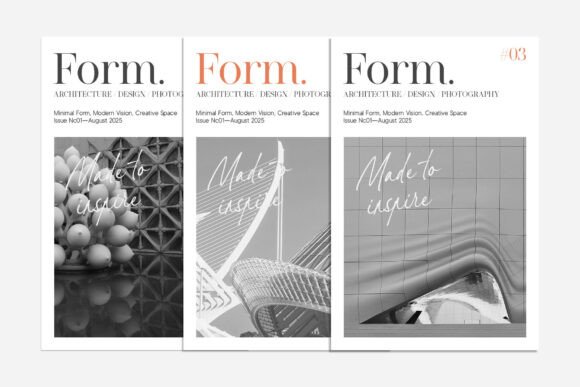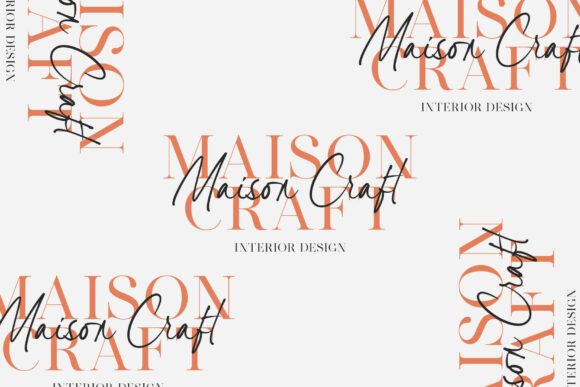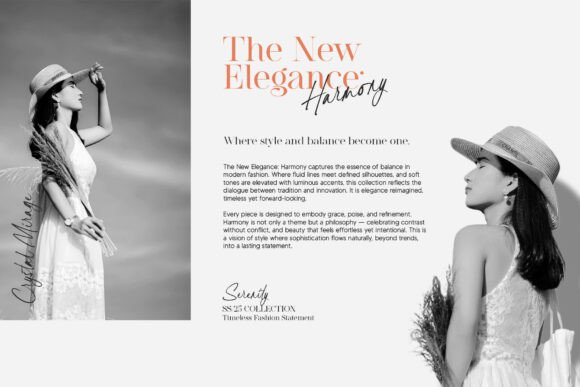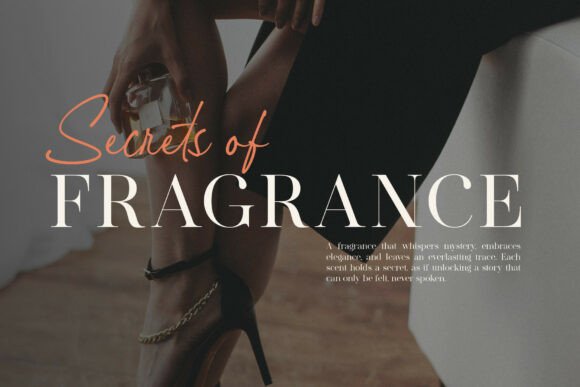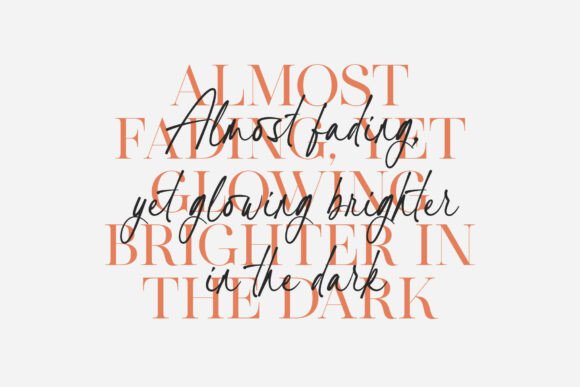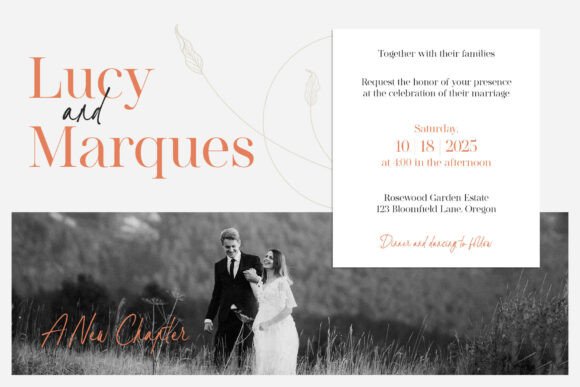
Introducing Crystal Mirage Font: Elevate Your Designs with Elegance and Sophistication
In the world of typography, finding the perfect font duo that combines style, elegance, and functionality can be a daunting task. However, look no further than Crystal Mirage Font, an exquisite pairing of an elegant serif and a sophisticated script. This versatile font duo is designed to cater to a wide range of design applications, including branding, packaging, invitations, editorial layouts, and social media graphics.
The Perfect Blend of Style and Functionality
Crystal Mirage Font is a masterful blend of two distinct typography styles, creating a unique and captivating visual experience. The elegant serif font brings a sense of tradition and sophistication, while the sophisticated script font adds a touch of modern elegance and whimsy. This harmonious pairing results in a refined and balanced aesthetic that is sure to elevate your designs and leave a lasting impression.
With Crystal Mirage Font, the design possibilities are endless. Use the serif font for body text, providing a clear and readable foundation for your content. Then, add the script font to headlines, titles, or captions, injecting a touch of personality and flair. This versatile font duo is perfect for:
- Branding: Create a lasting impression with Crystal Mirage Font, perfect for logos, business cards, and brand guidelines.
- Packaging: Elevate your product packaging with elegant and sophisticated typography that stands out on store shelves.
- Invitations: Design beautiful and unique invitations for weddings, parties, and special events.
- Editorial Layouts: Add a touch of elegance to your editorial layouts, including magazines, newspapers, and blogs.
- Social Media Graphics: Create stunning social media graphics, including Facebook posts, Instagram stories, and Twitter headers.
Refined and Balanced Aesthetic
Crystal Mirage Font boasts a refined and balanced aesthetic that is both modern and timeless. The font duo’s elegant and sophisticated design ensures that your projects exude a sense of luxury and refinement. With Crystal Mirage Font, you can:
- Add a touch of sophistication: Elevate your designs with a font duo that exudes elegance and refinement.
- Create a lasting impression: Make a lasting impression on your audience with a unique and captivating visual experience.
- Foster a seamless combination: Combine modern elegance with practical usability, ensuring that your designs are both beautiful and functional.
Unique Character and Charm
Crystal Mirage Font is more than just a font duo – it’s a design experience. With its unique character and charm, this font duo is sure to inspire your creativity and take your designs to the next level. Explore the possibilities of Crystal Mirage Font and discover how it can:
- Elevate your creative work: Take your designs to new heights with a font duo that is both elegant and sophisticated.
- Add a touch of personality: Inject a touch of personality and flair into your designs with the script font’s whimsical and modern elegance.
- Make your designs stand out: Create designs that stand out from the crowd with a font duo that is both unique and captivating.
| Font Name | Crystal Mirage Font |
| Author | lemonthe |
In conclusion, Crystal Mirage Font is an exquisite font duo that is sure to elevate your designs with its elegant and sophisticated aesthetic. With its refined and balanced design, this versatile font duo is perfect for a wide range of design applications. Whether you’re a designer, crafter, or simply someone who appreciates beautiful typography, Crystal Mirage Font is a must-have addition to your design toolkit. So why wait? Explore the possibilities of Crystal Mirage Font today and discover how it can take your designs to new heights.